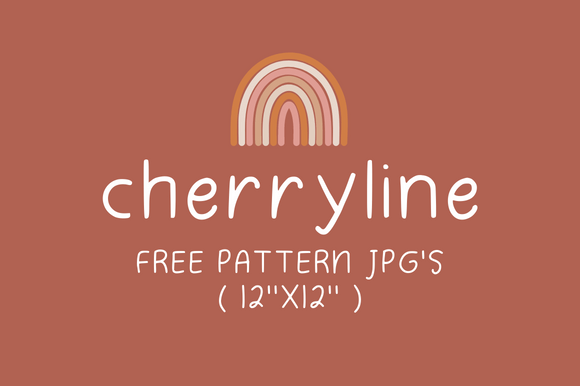
Introducing Cherryline Font, the Best Font for Paper Length, created by the talented sweetsparkles. This modern and visually appealing display font is perfect for elevating any project with its elegance and precision.
Cherryline Font is a true masterpiece, with each letter crafted to perfection. Its sophisticated and charming design makes it an excellent choice for creating branding, signage, or print materials. You won't find a more versatile font to give your project a professional and polished look.
Not only is Cherryline Font visually stunning, but it also has the power to evoke emotions in your audience. Its unique style is sure to capture their attention, leaving a lasting impression. Cherryline Font is perfect for those who want to make a statement and stand out from the crowd.
In today's fast-paced world, it's crucial to make a lasting impression. Cherryline Font can help you achieve that with its eye-catching design and superior quality. Make your projects more appealing and captivating with this must-have font.
Don't settle for ordinary fonts when you can have Cherryline Font. It's the perfect font for those who want to make an impact and leave a lasting impression. With its stunning design and exceptional quality, Cherryline Font is a must-have for any designer or creative individual.